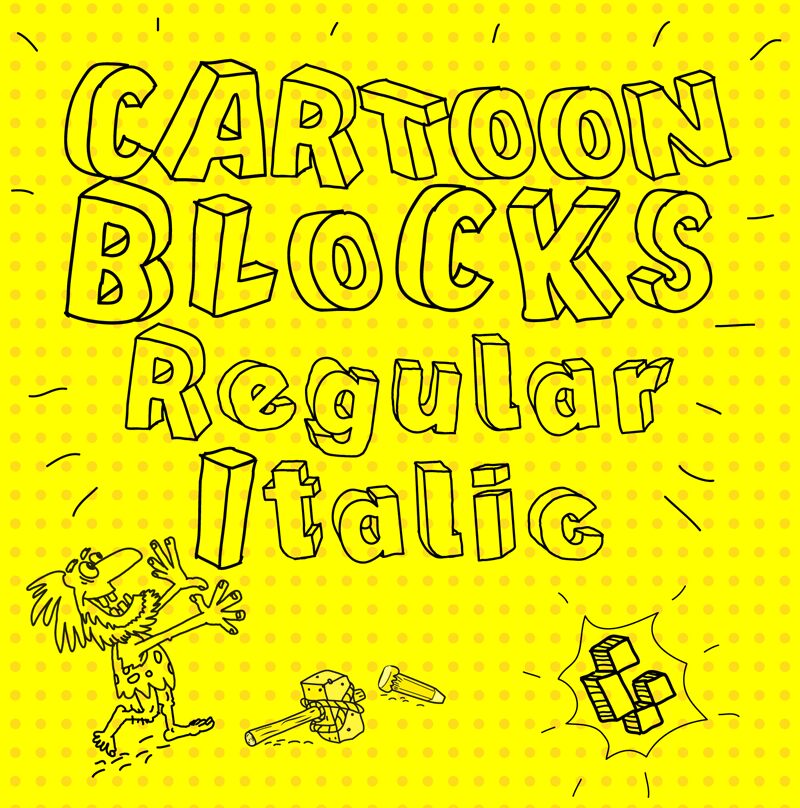
Cartoon Blocks Italic
Cartoon Blocks Italic font is a creation of Galdino Otten Fonts who joined creativity and functionality in this 3D cartoon display font. Playful energy, whimsical designs, and an informal structure characterize the silhouette of each letter and how all word markings will eventually appear with this creative selection.
Introduce a cartoonish feel to signboards, neon signs, advertisement banners, movie headlines, or professional artwork like web designs where audiences do not expect it with Cartoon Blocks Italic. Users can enjoy the unusual effect of this fun and borderline irreverent typeface whose lettering seems to jump out from the screen/page.